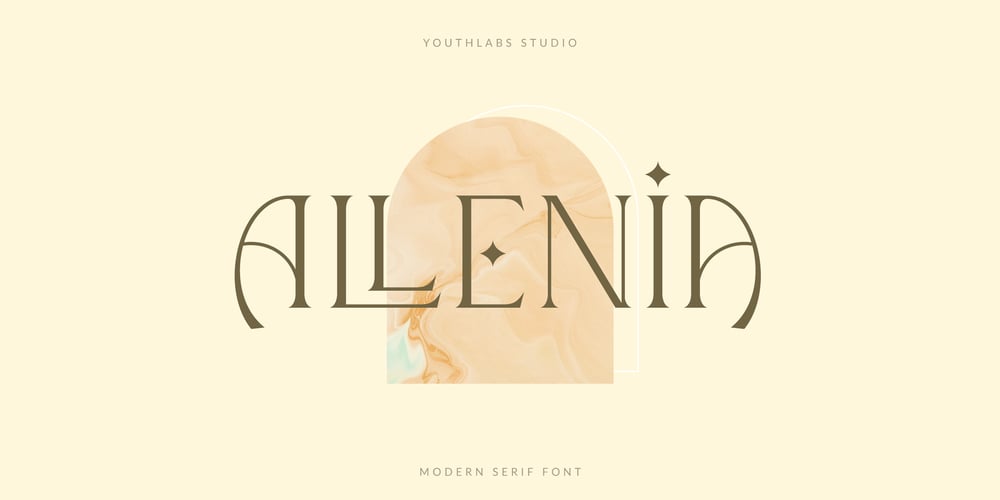
Allenia
Allenia font
Allenia Font Family was designed by Fathi Al Ghazi and published by Youthlabs. Allenia contains 1 styles and family package options. Allenia Font Inspired by Modern and Luxury Typography. Allenia Font is a very versatile font. you can use this font to various design. Basics can improve more than 150 alternative character where can collaborate with Vector Pack and Premade LogosWHAT’S YOU GET ? Unique Letterforms Works on PC & Mac Simple Installations Accessible in the Adobe Illustrator, Adobe Photoshop, Microsoft Word even work on Canva! Fully accessible without additional design software. I really hope you’ll get pleasure using Allenia font and it will be perfect addition to your font collection! Contact me with an inbox message If you have any question. Thank you! Happy Creating.